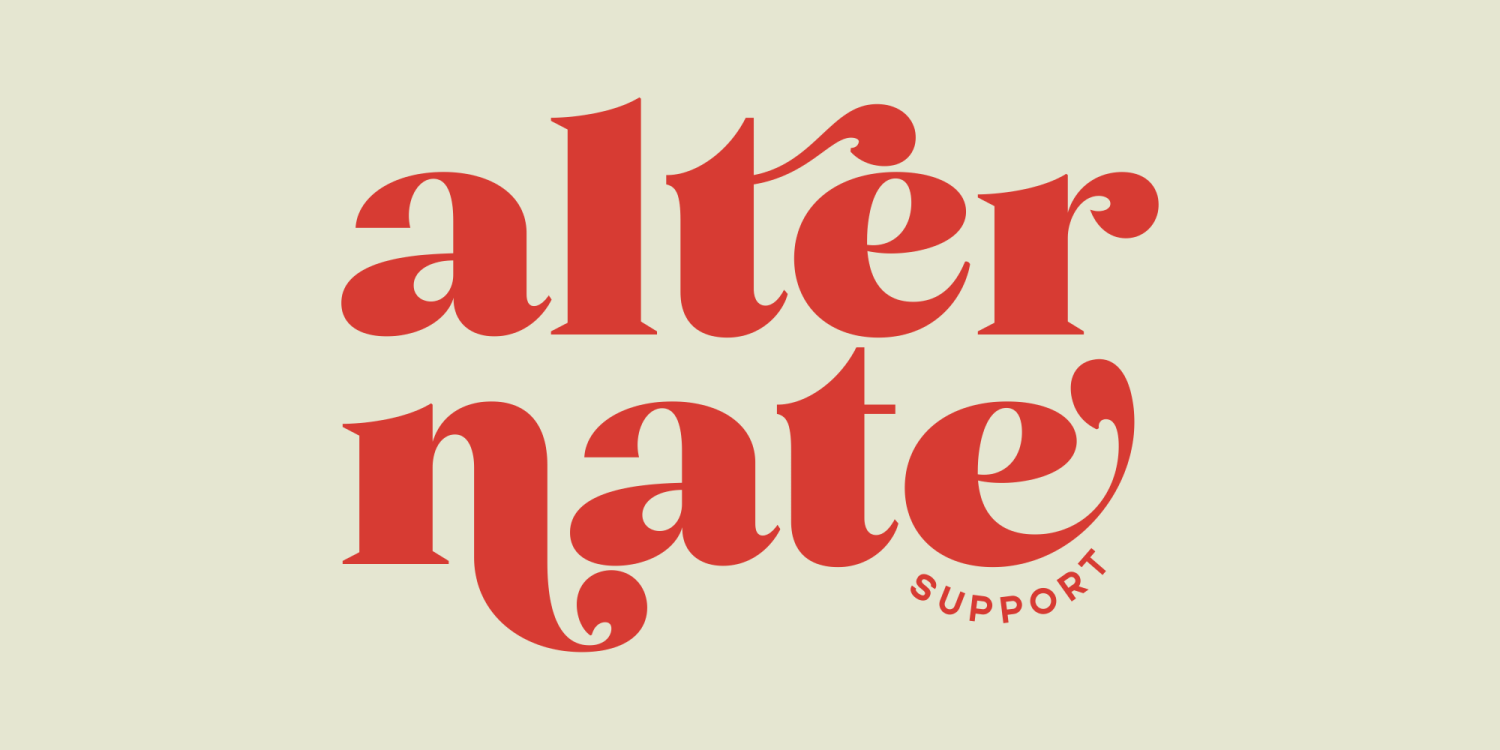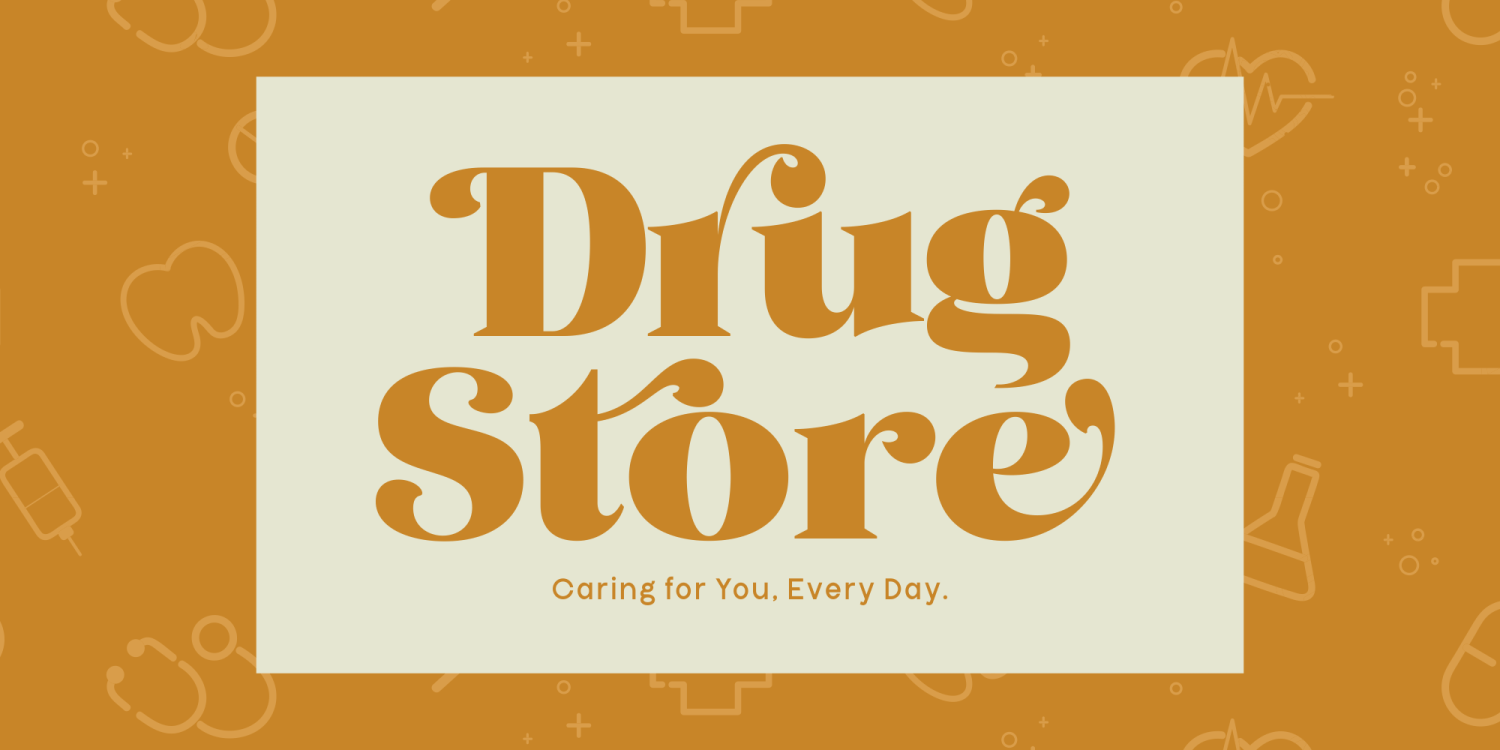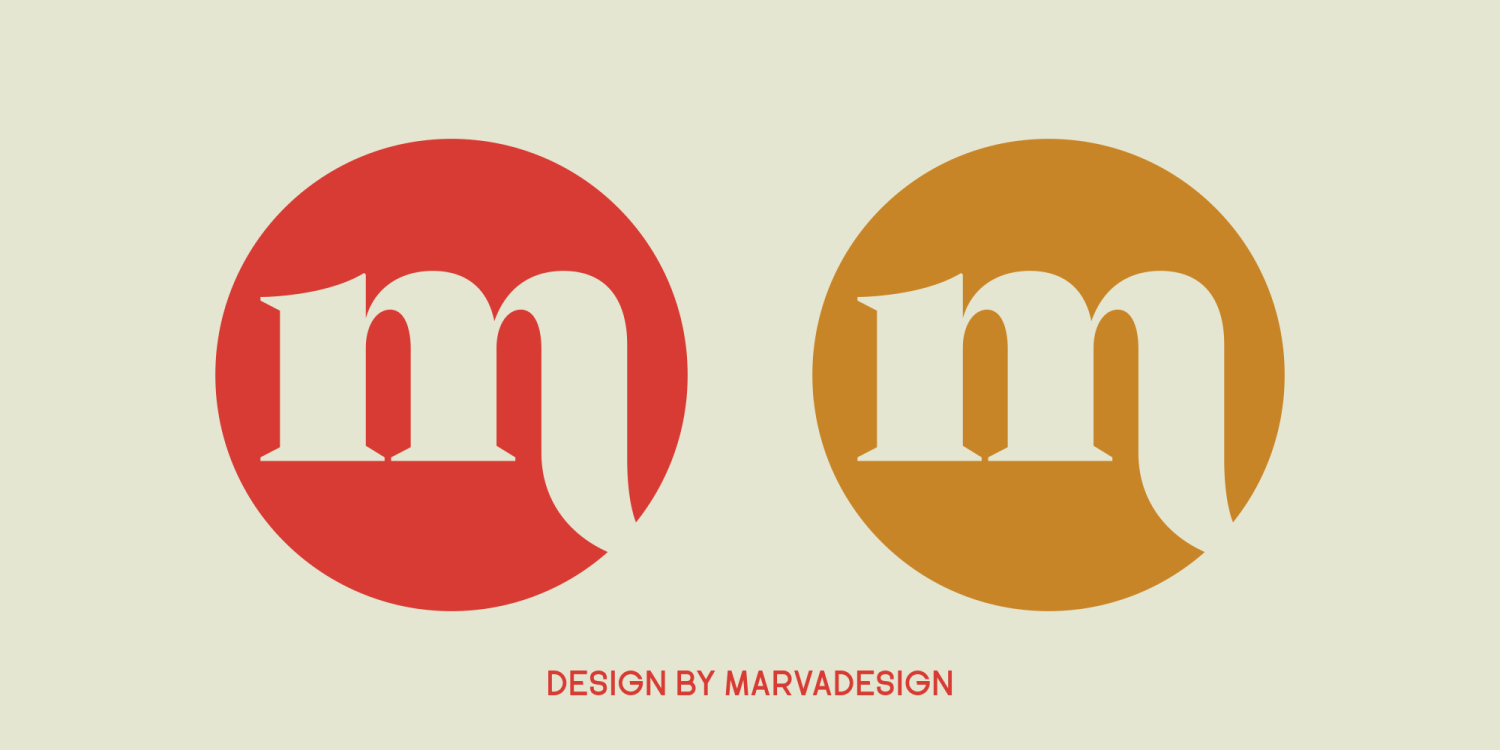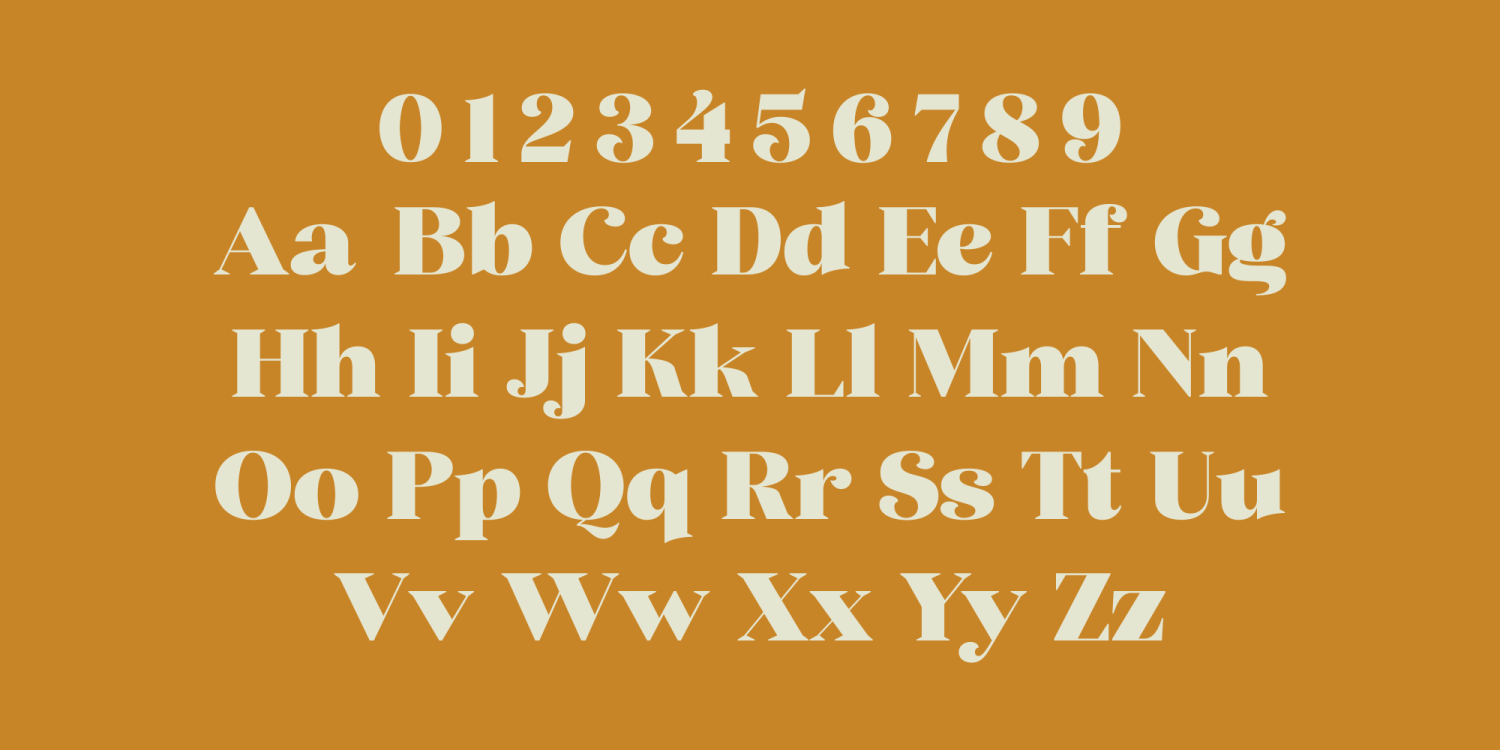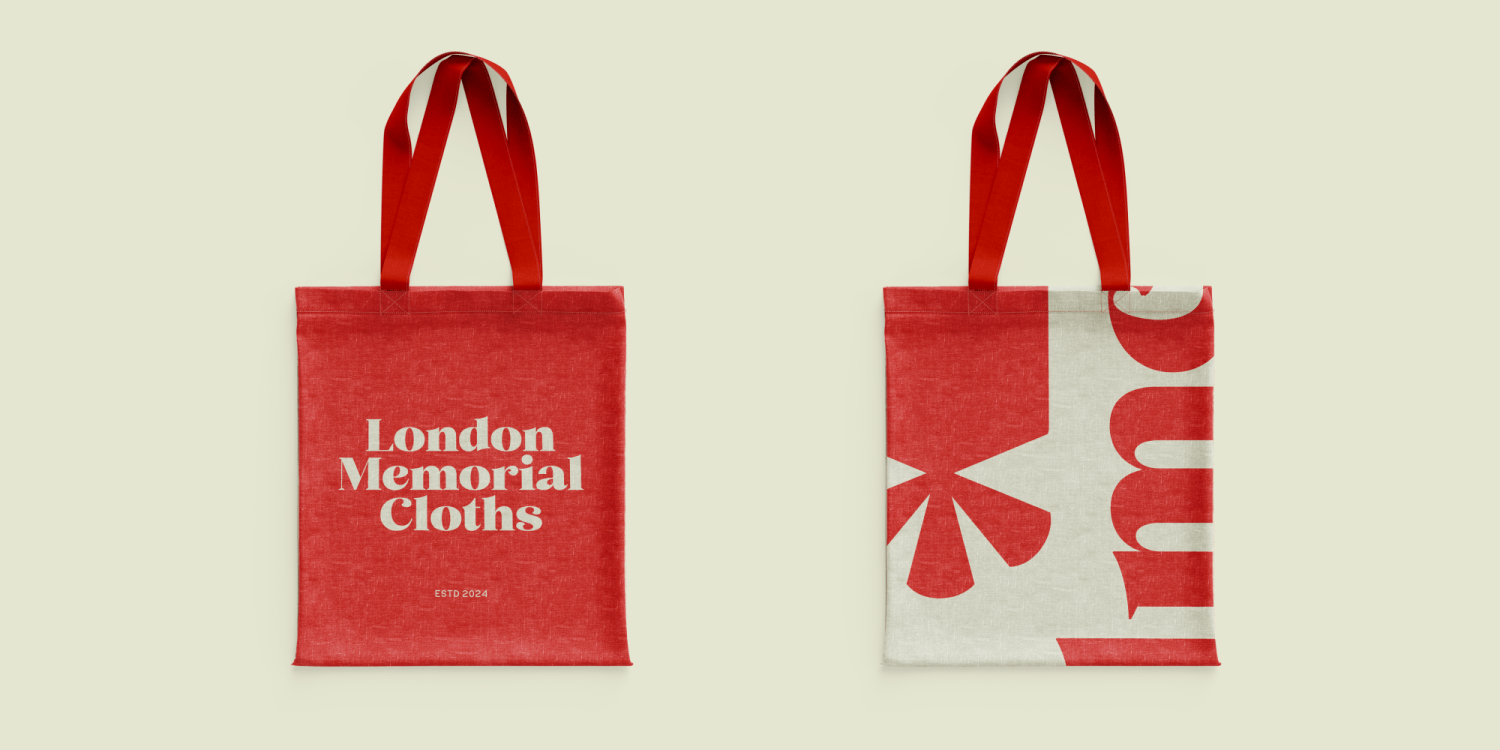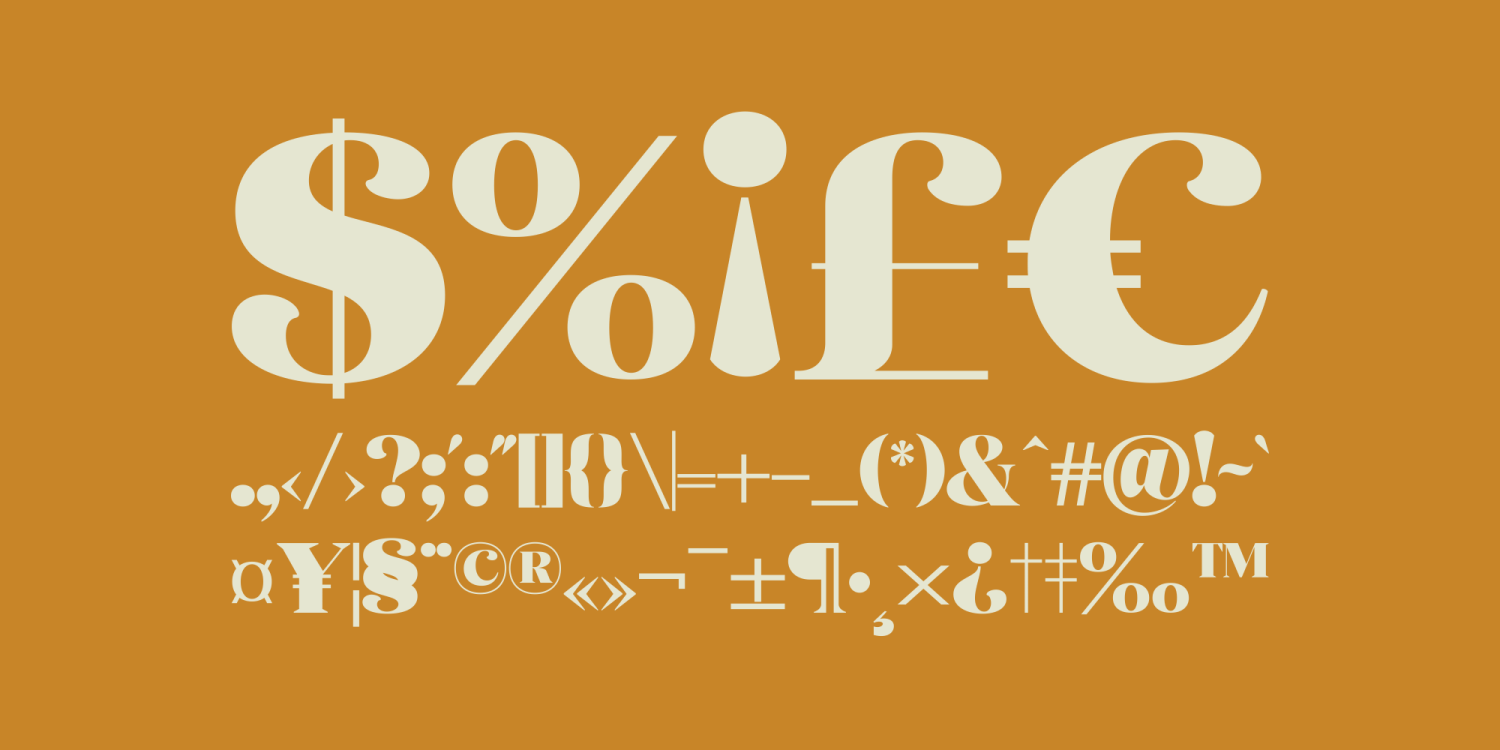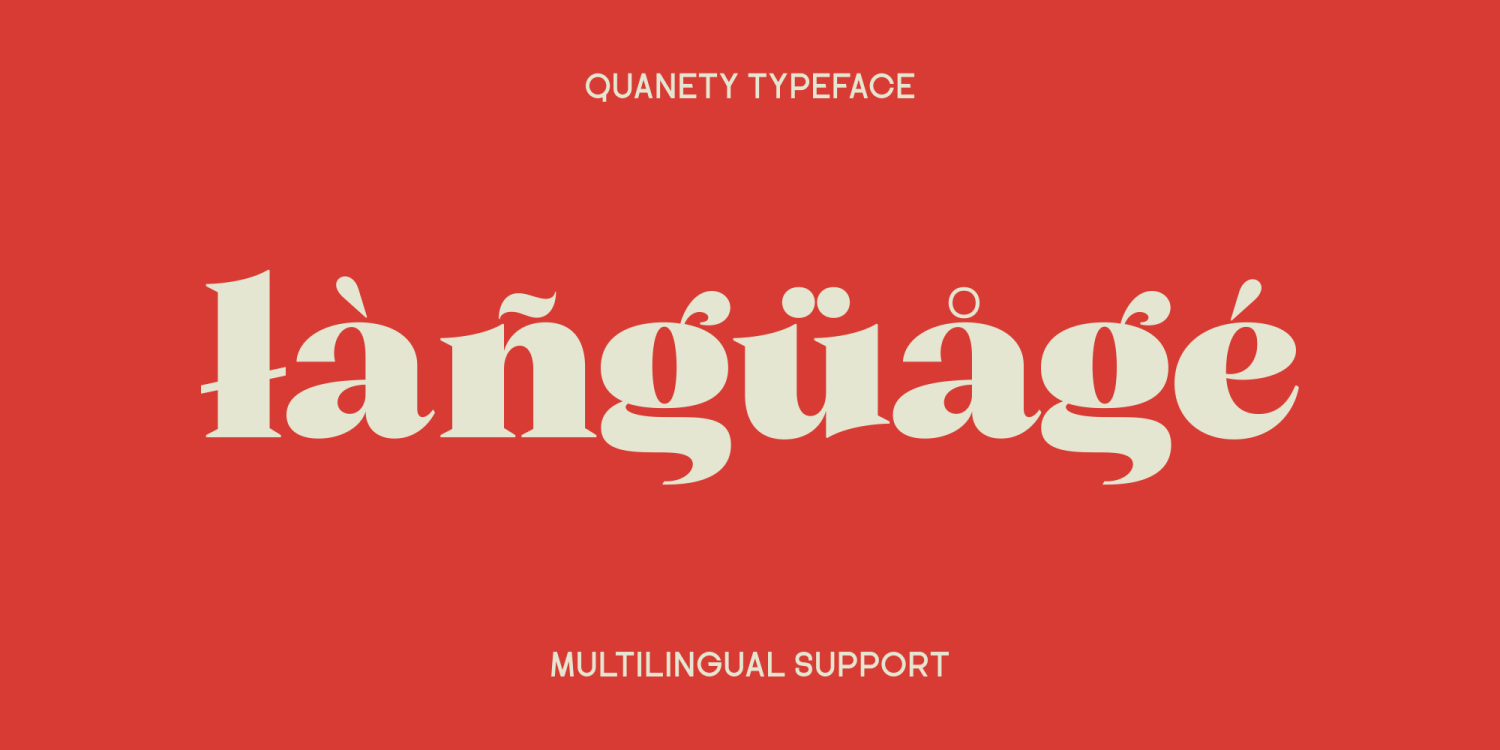
Quanety
Font Family by Marvadesign
Introducing Quanety is an elegant display font characterized by its sophisticated and refined design. This font features a wide range of alternative characters, allowing for versatile and unique typography that adds distinctive personality to any text. With its bold weight, Quanety is particularly well-suited for brand identity, product packaging, posters, and other prominent visual displays. The font's thickness makes it ideal for headlines and titles, ensuring that the text stands out with a commanding presence while maintaining a touch of elegance and style.